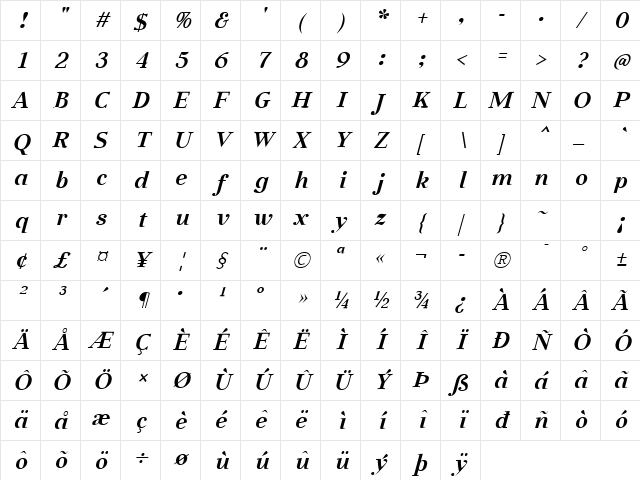
Aabced Bold Italic
Design Context for Aabced
Aabced is a composed and adaptable typeface that performs quietly and consistently across a wide range of design contexts. The slanted form adds forward momentum and visual energy. Its bold stroke weight gives it real presence on the page.
Pro Tip: Use Aabced for emphasis, pull quotes, and subheadings where its slanted energy can add rhythm to the layout.